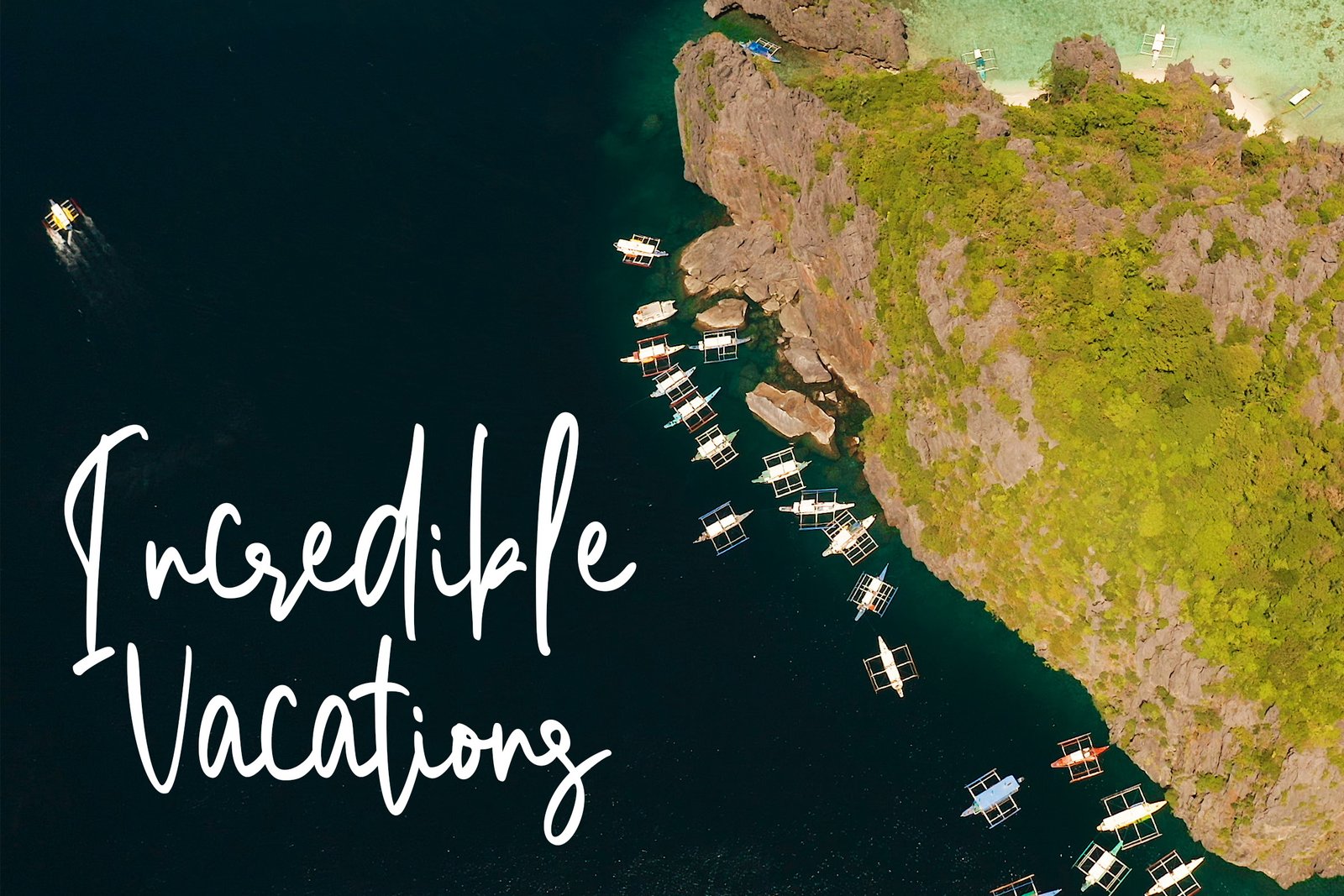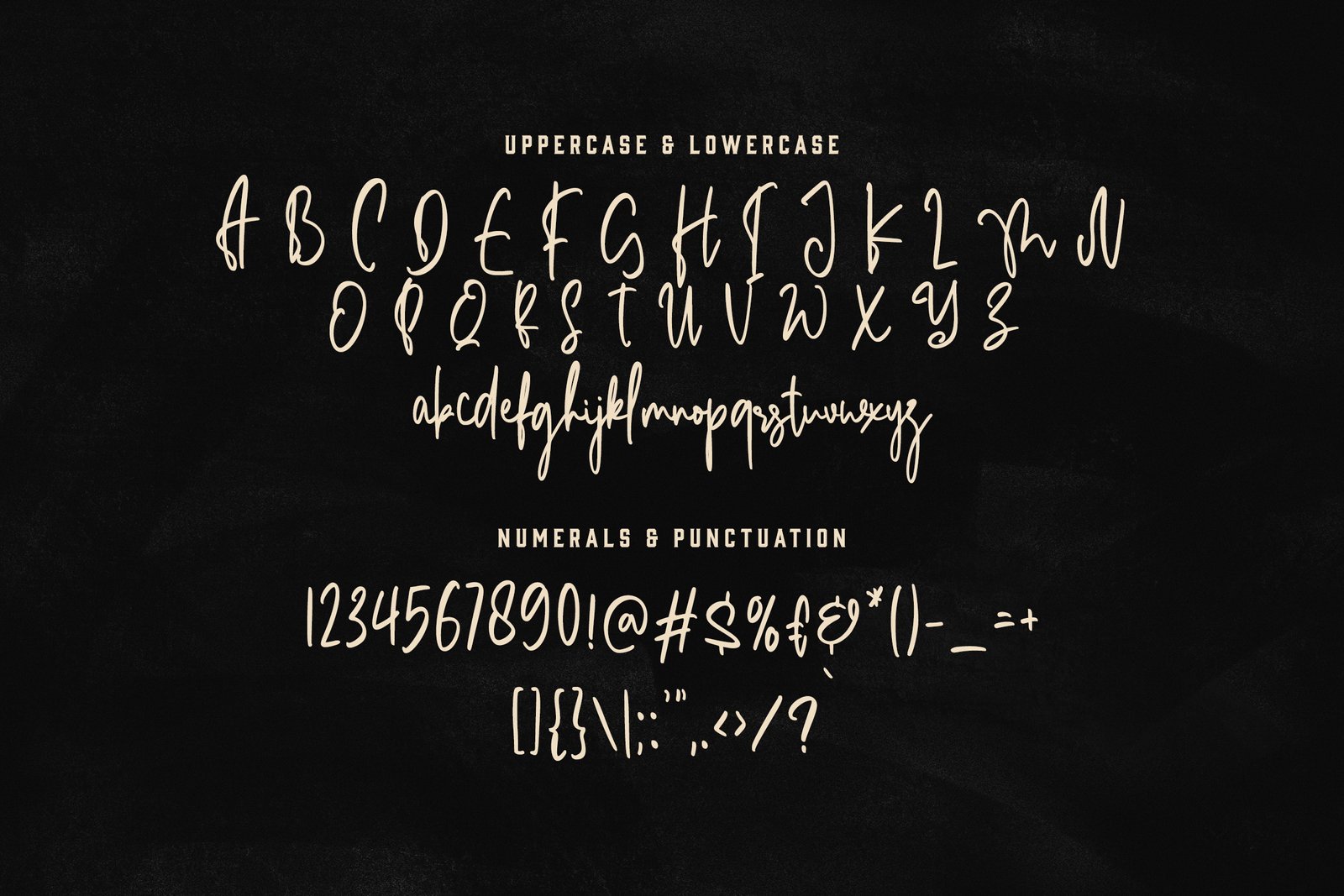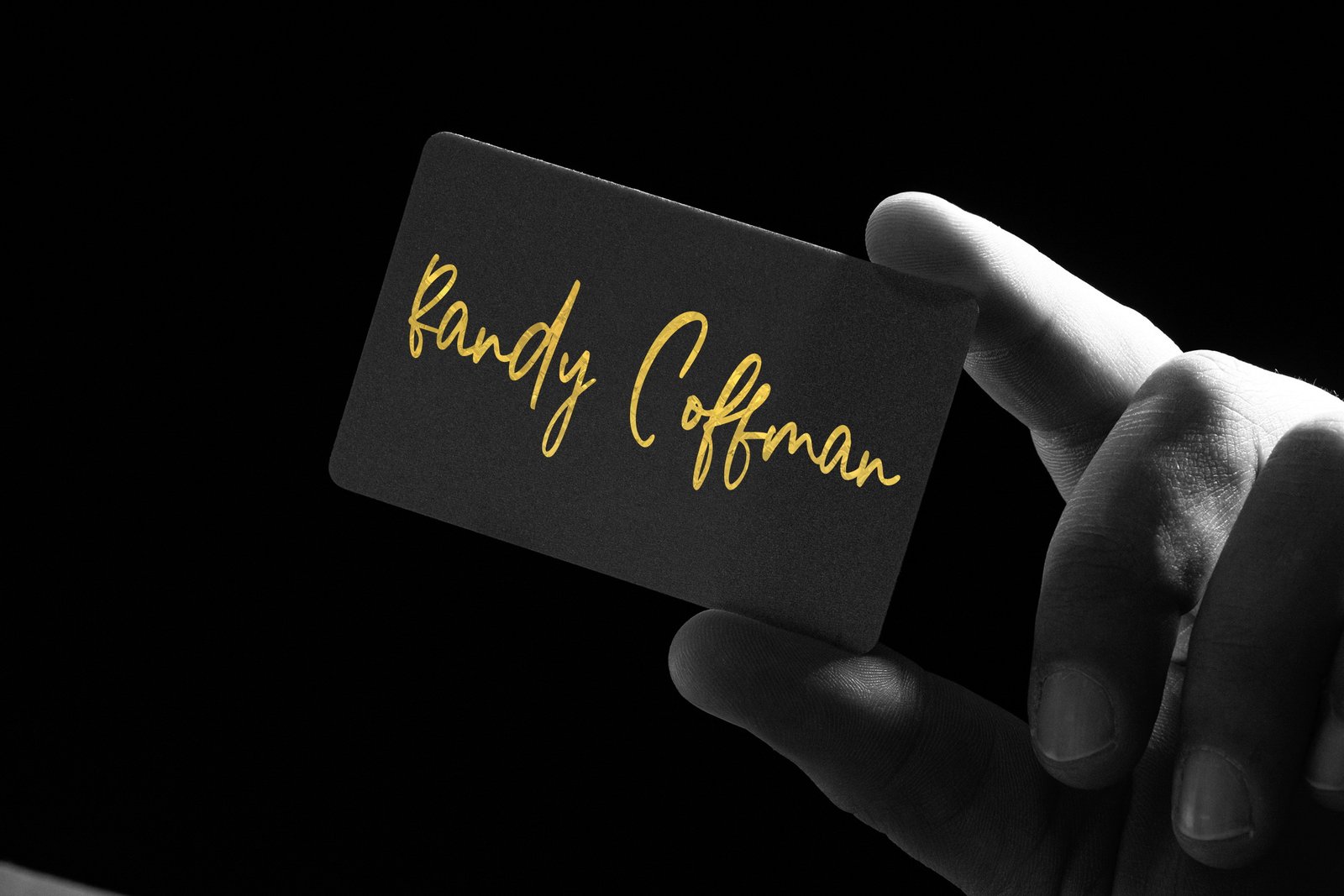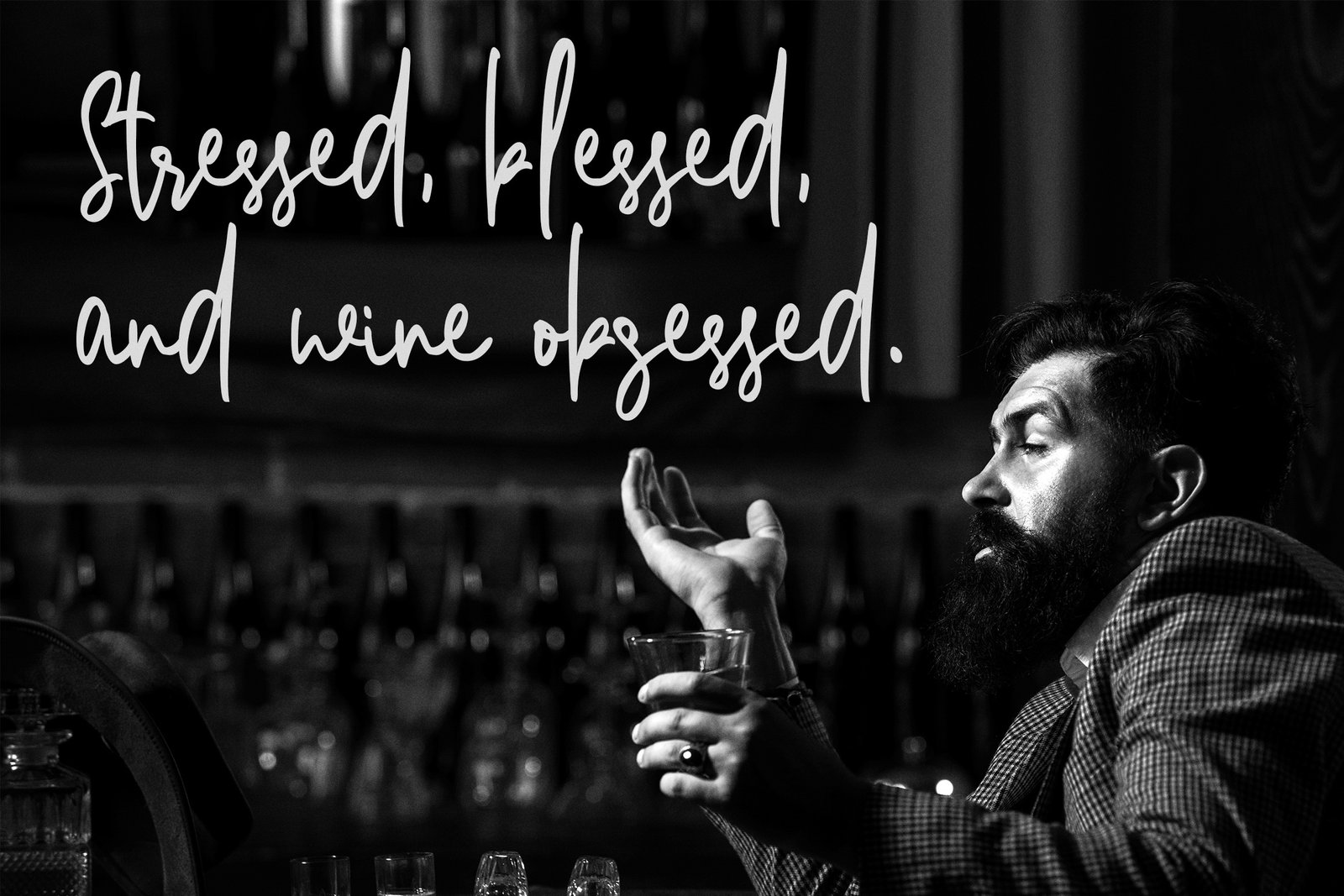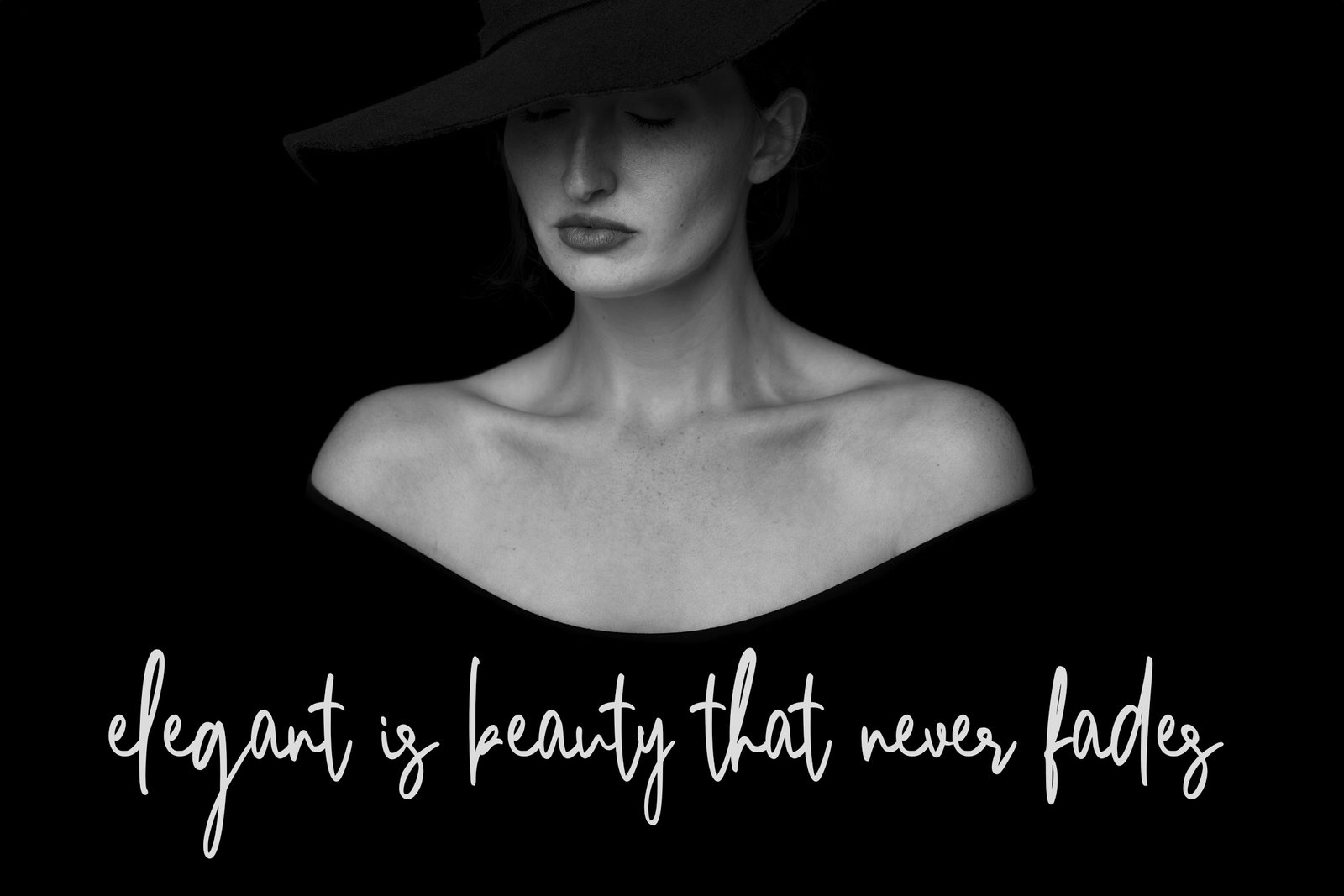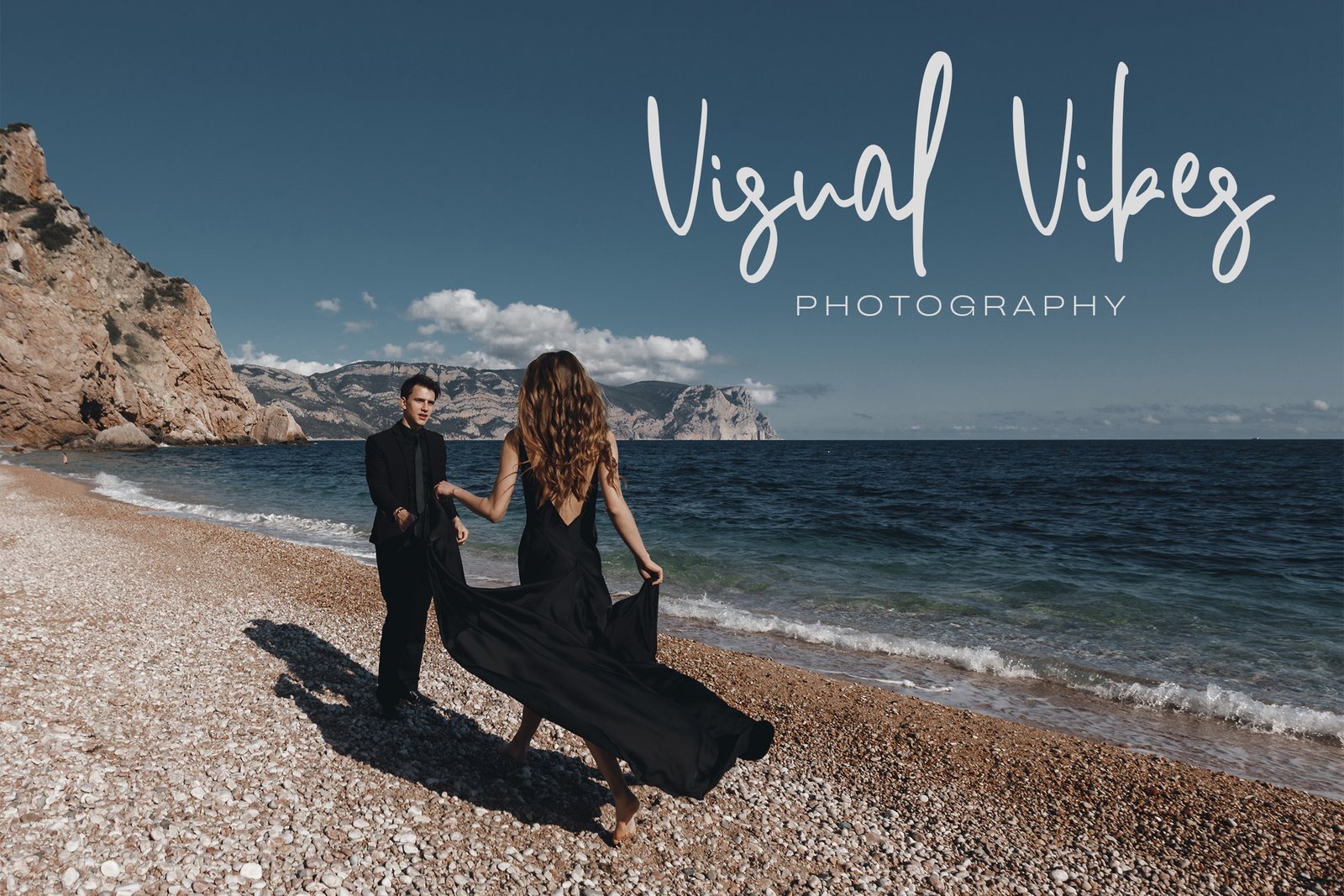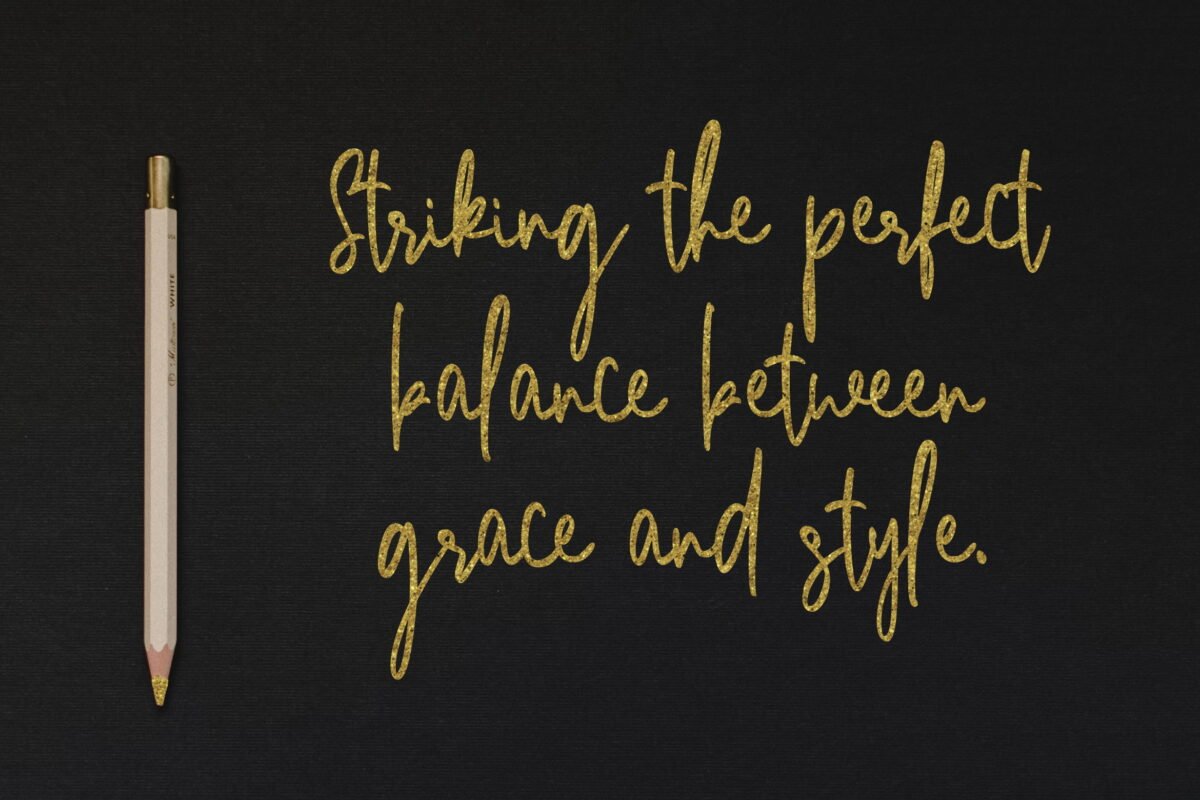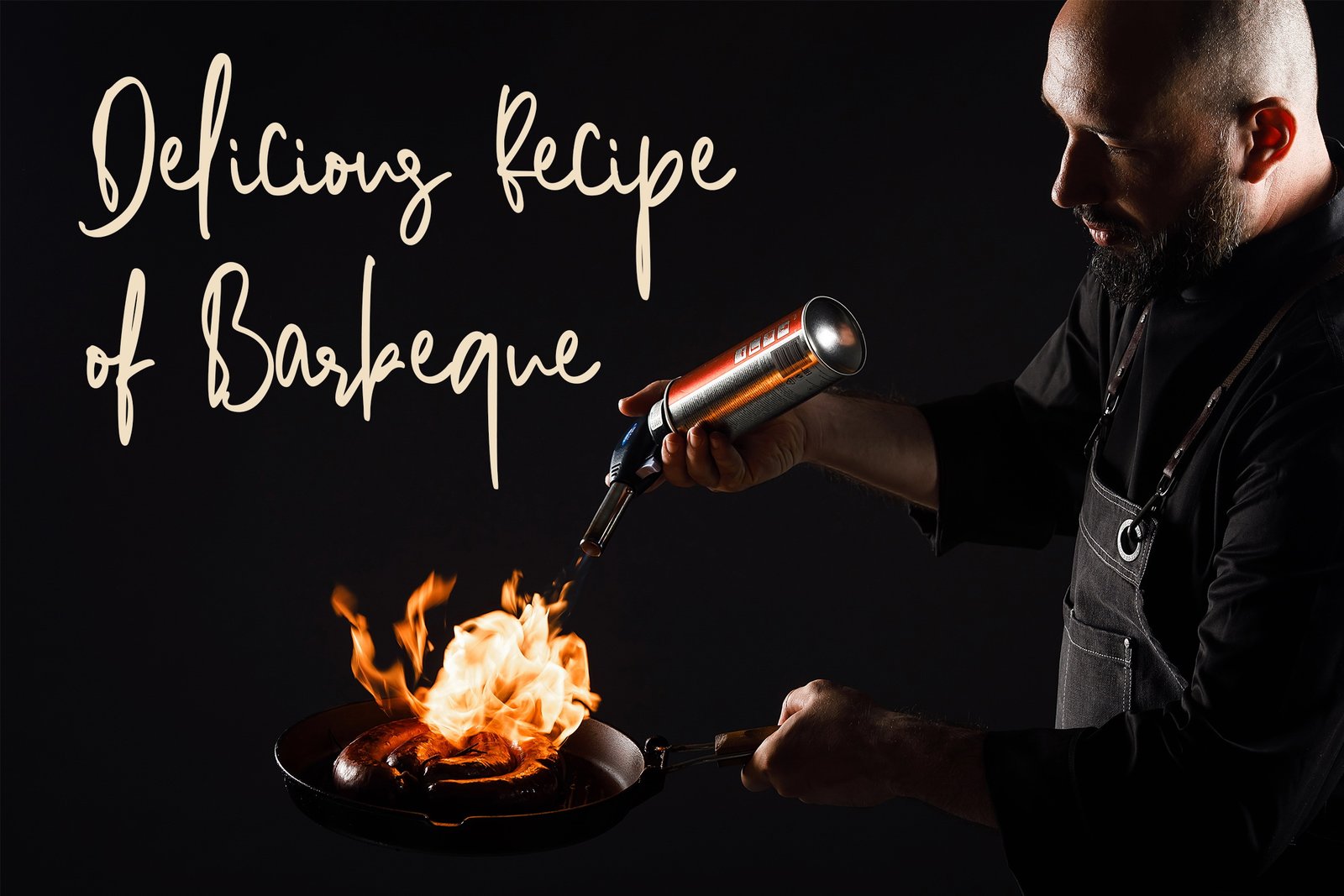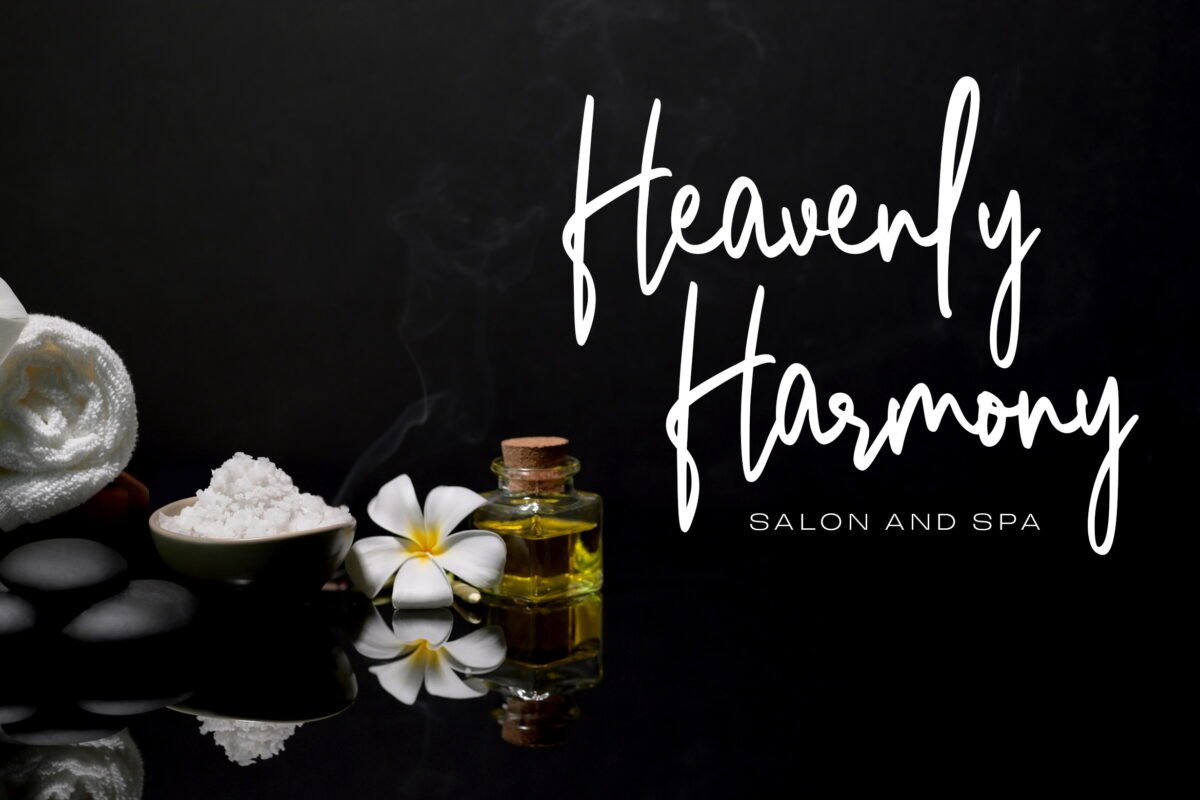
Bonehead Script Font
Bonehead Script is a stylish and versatile script font, perfect for adding a personal touch to your design projects. With its flowing and elegant style, this font is ideal for invitations, greeting cards, logos, branding, quotes, and web design. Bonehead Script will give an elegant and classy impression to each of your work.
Features
• Uppercase & Lowercase letters
• NumeNumerals Punctuations
• Ligatures
• Alternate
• Multilingual Support